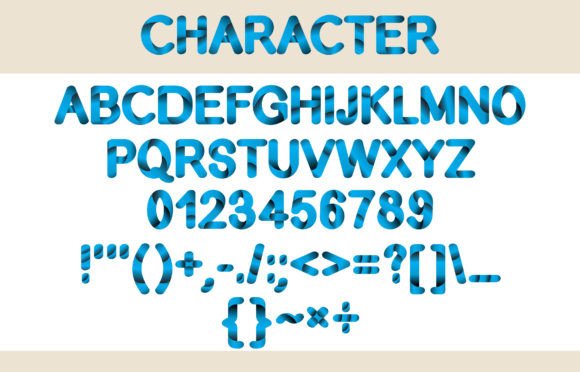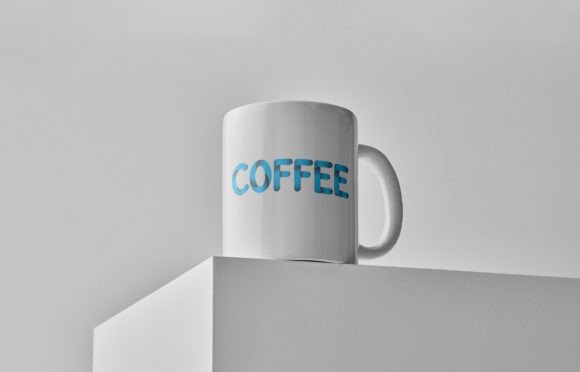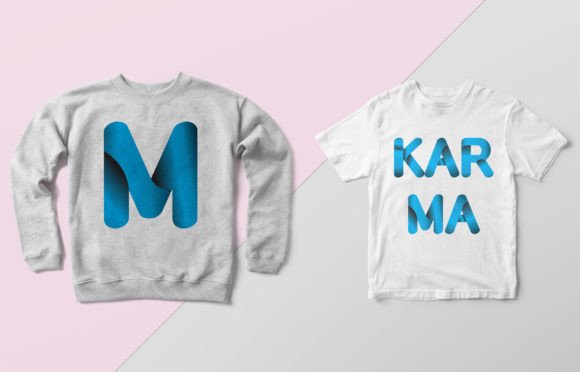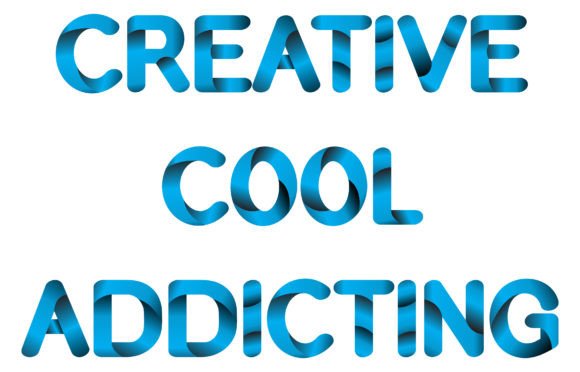
Introduction to Hinkel Font
Have you ever stared at a blank design canvas, feeling the pressure to create something truly unique and captivating? As designers, we’ve all been there – searching for that perfect font that sets our project apart. Enter the Hinkel Font, a modern gradient font that’s sure to add a touch of elegance and modernity to your creative endeavors.
Whether you’re working on a logo, web content, or display graphics, the Hinkel Font is an excellent design resource that’s sure to elevate your project. Its fun and quirky character makes it an ideal choice for designers who want to add a bit of personality to their work. And the best part? This color font is compatible with a range of software, including PhotoShop, Illustrator, Silhouette, and Inkscape, making it a valuable addition to any designer’s toolkit.
Key Features of Hinkel Font
- High-quality design resource for creative projects: Hinkel Font offers a unique and modern style that can elevate any design.
- Transparent background: The transparent background of Hinkel Font allows for seamless integration with any design, giving you complete creative control.
- High-resolution design: With a resolution of 300 DPI, Hinkel Font is suitable for high-quality printing and digital applications.
- Unique characteristics: The Hinkel Font features a distinctive blend of modern and vintage elements, making it an excellent choice for designers looking for something unique.
Honest Review: Hinkel Font
As a designer, I’m always on the lookout for high-quality design resources to elevate my creative projects. Recently, I stumbled upon the Hinkel Font, and I’m excited to share my thoughts on this free download.
- Unique and modern design aesthetic
- Smooth and elegant lines
- Perfect for use in digital designs, such as web and mobile apps
- Includes a transparent background option for added flexibility
- Only includes a single font style (no bold or italic variations)
- No support for complex layouts or high-end typography
Overall, I’m impressed with the Hinkel Font’s modern design and versatility. While it may not be suitable for every design project, it’s a great option for those looking for a clean and elegant font for digital designs. With its free download and transparent background option, it’s a valuable addition to any designer’s toolkit.
For the most out of the Hinkel Font, use it in conjunction with other design elements to create a cohesive look. Some common use cases include creating logos, typography-based designs, and illustrations. The Hinkel Font’s transparent background makes it perfect for creating designs with a subtle, layered look.